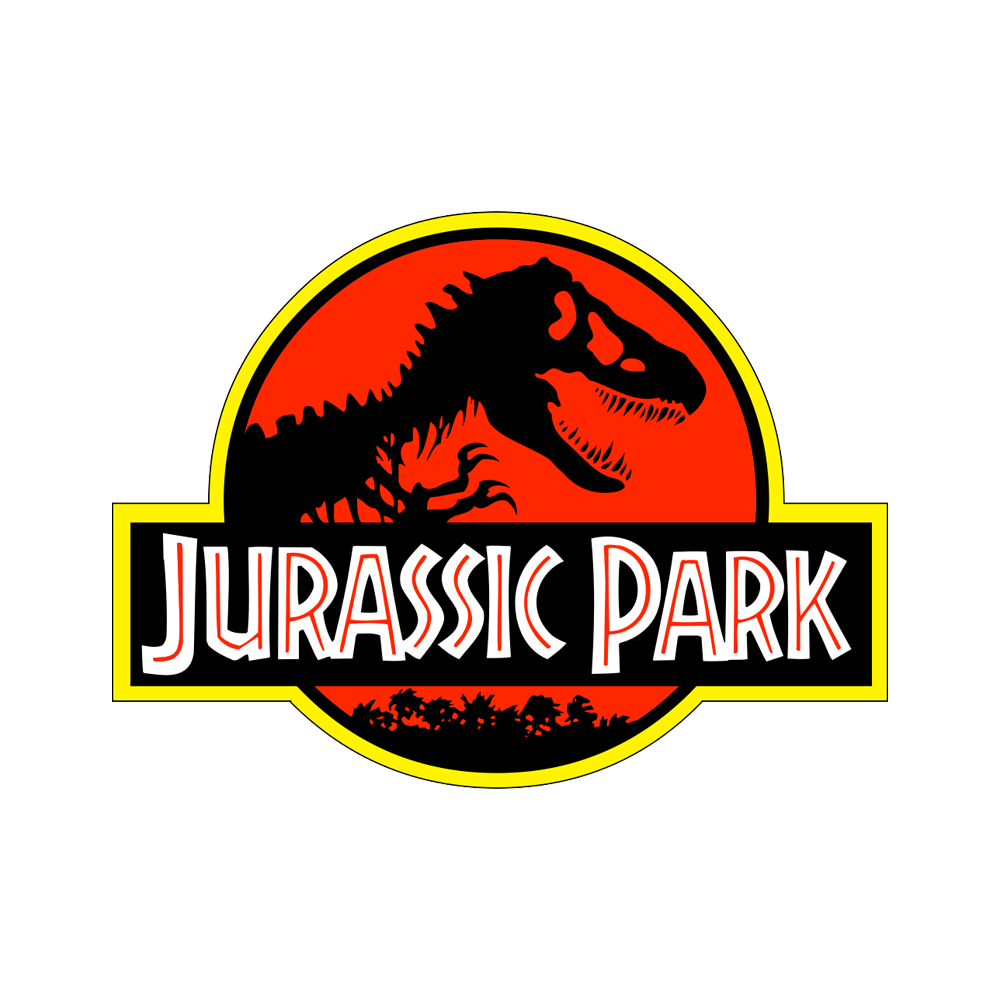
Jurassic Park Font
Fonts in UseJurassic Park is a 1993 science fiction film directed by Steven Spielberg and based on the novel of the same name by Michael Crichton. The film follows a group of scientists who are invited to a remote island where a billionaire has created a theme park featuring genetically engineered dinosaurs, but things go awry when the dinosaurs break free and start attacking the humans on the island.
The font used in the Jurassic Park logo is custom made although has been recreated as Jurassic Park Font by Filmfonts. The font is free to download in the Fonts Used section and is licensed as free for personal use.